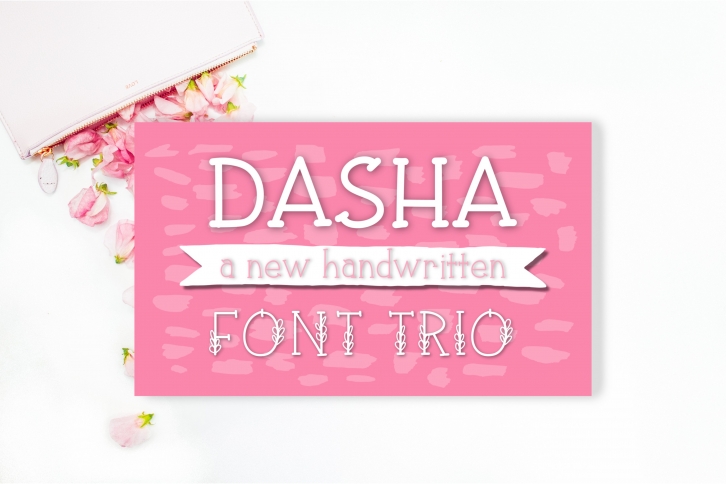
A new creative font trio. Perfect for crafting, school, inactivation or anything that needs a fun vibe to it. Handwritten by me for your to create and have fun with.